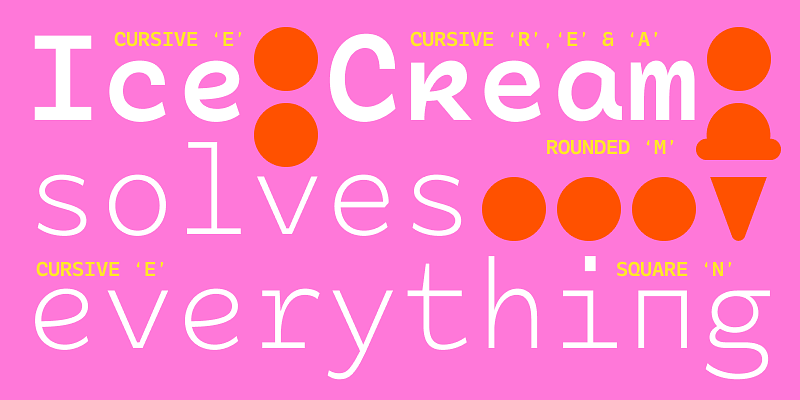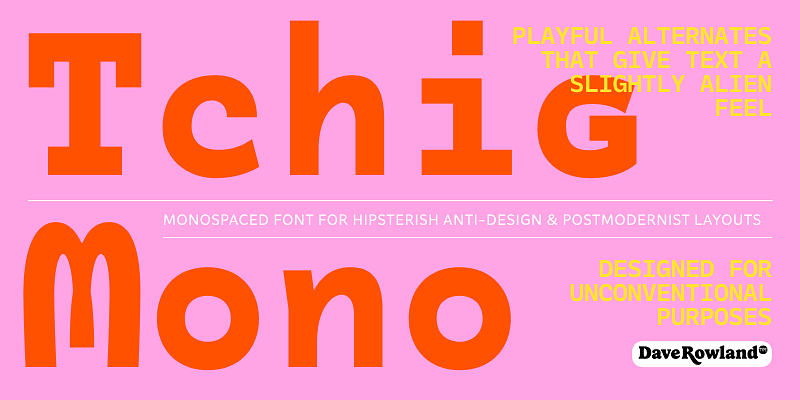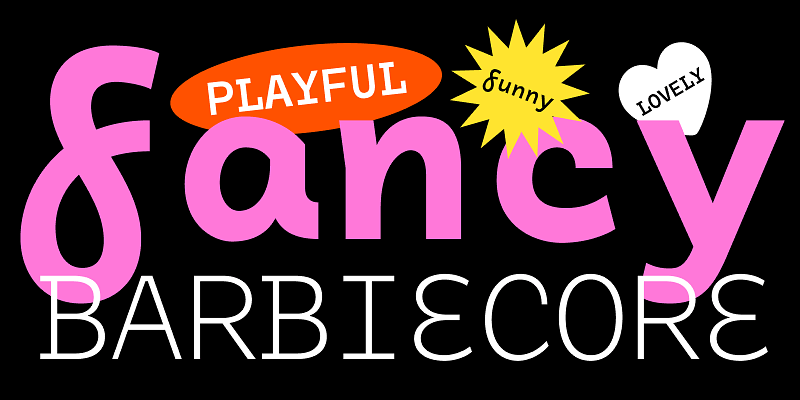
This is Tchig Mono, a monospaced font family not taking itself too seriously. It has a playful spirit with a few surprises. Stylistic sets offer cropped lowercase forms with a small-caps-like feel, plus a selection of alternates giving the text a slightly alien feel. Useful for coding and technical information? Sure! However, the more unorthodox shapes have a quirky vibe appropriate for postmodernist layouts, independent films, pop-up restaurants, and other out-of-the-box designs.